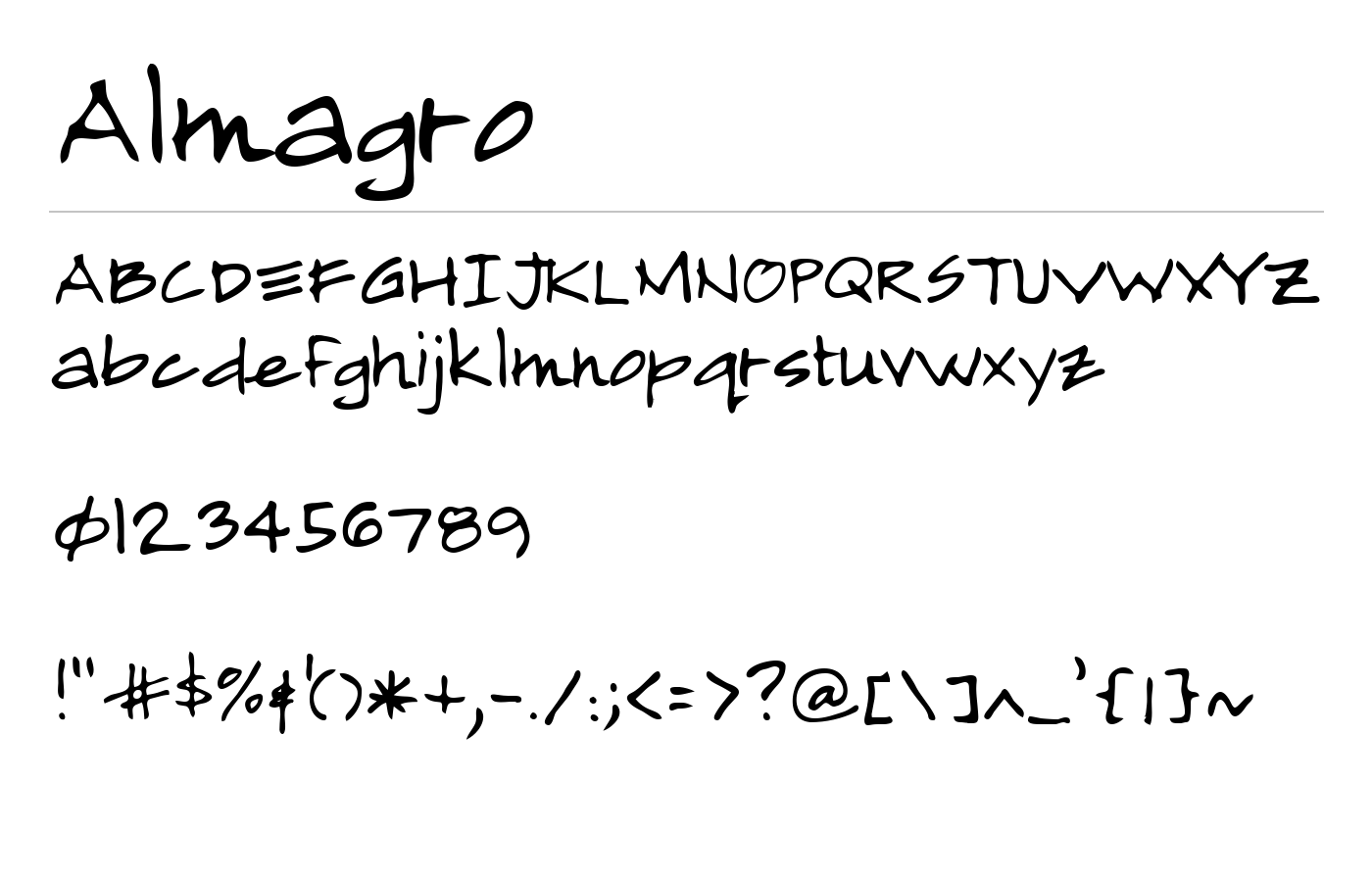
Almagro is a casual, handwritten sans serif font with a playful and relaxed feel. Its uneven strokes and quirky letterforms give it a friendly, approachable personality, making it ideal for creative projects, informal branding, and any design that benefits from a personal touch. This font works well for headlines, logos, and packaging where a unique, hand-crafted look is desired.
Almagro Font
About Almagro Font